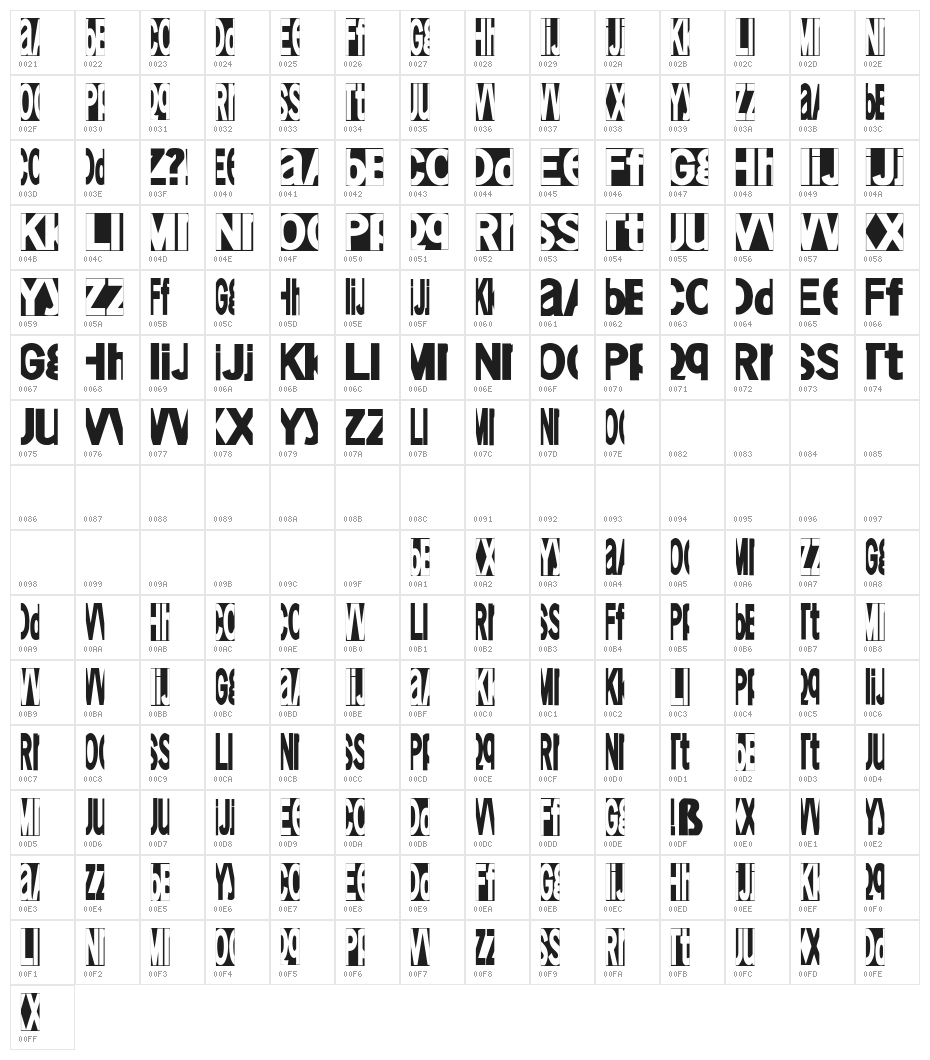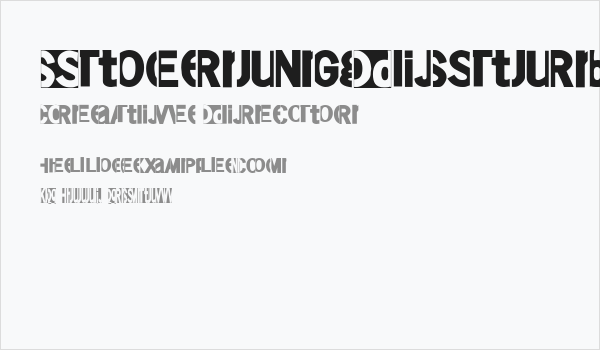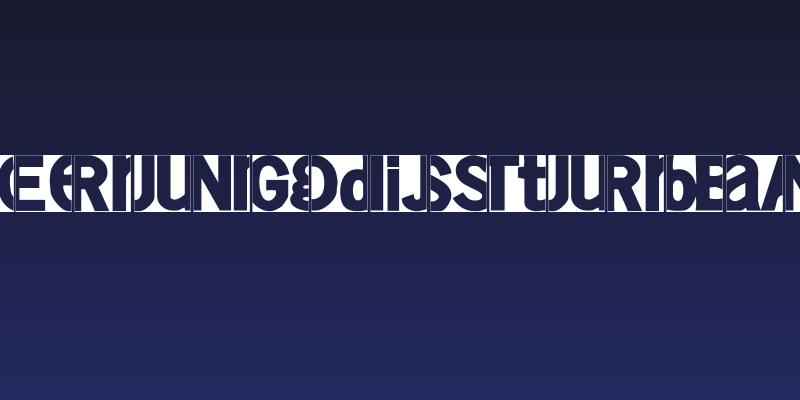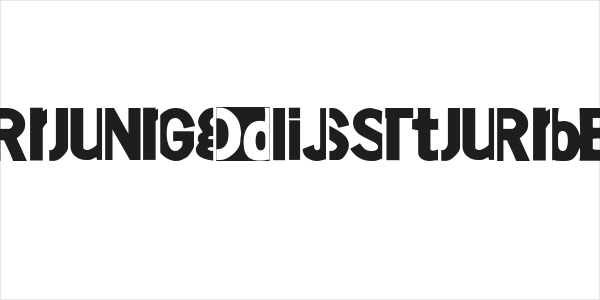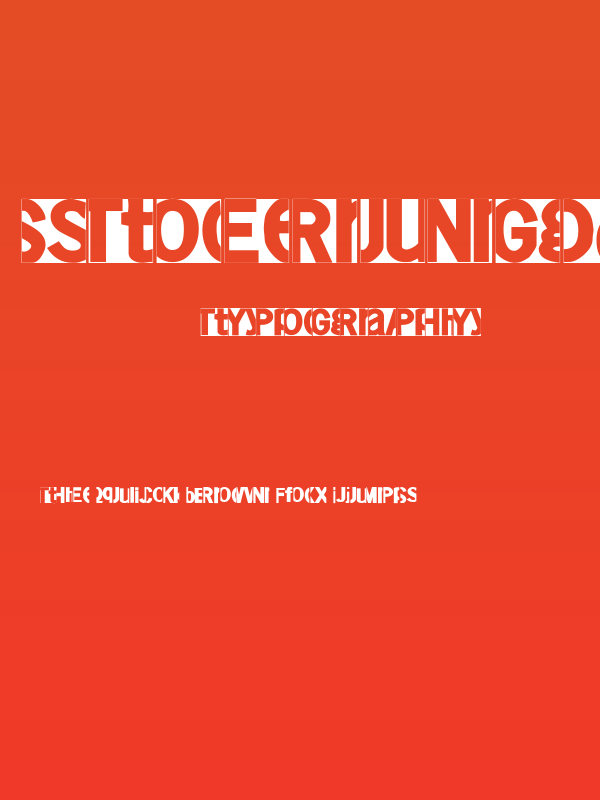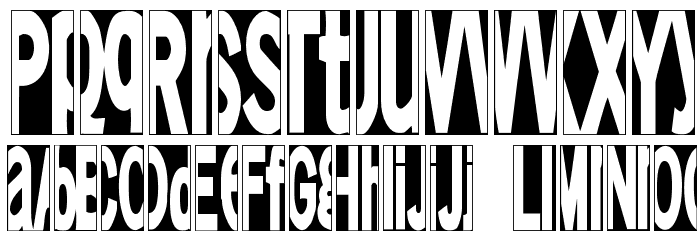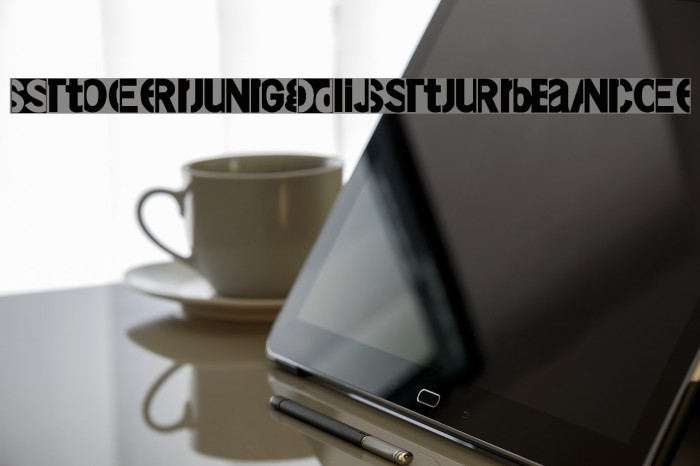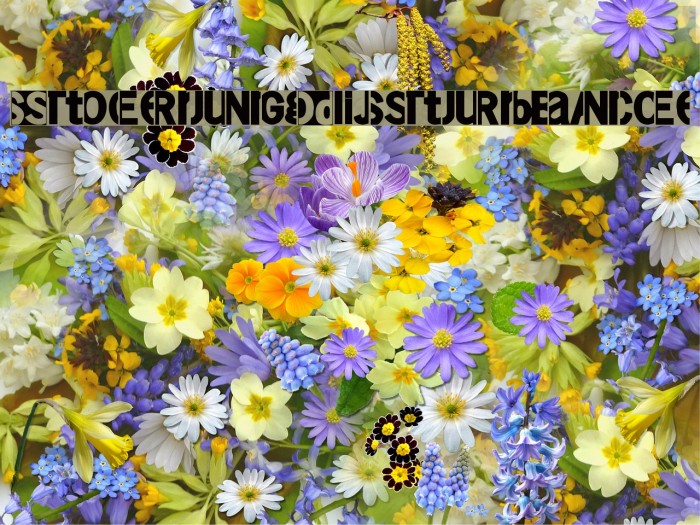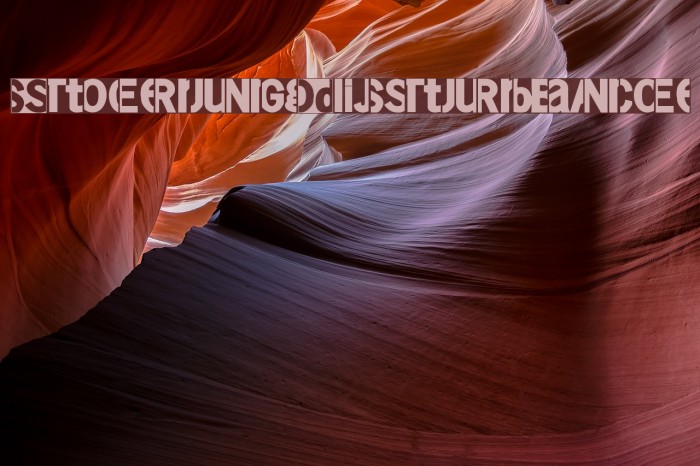
StoerungDisturbance Font
StoerungDisturbance Description
This font features a bold and striking design with a high contrast between thick and thin strokes, creating a dynamic and impactful appearance. The characters are uniquely styled with geometric elements, giving them a modern and edgy look. The uppercase and lowercase letters maintain a consistent style, while the numerals and special characters blend seamlessly into the overall design. The font's boldness and distinctive style make it suitable for attention-grabbing headlines and creative projects.